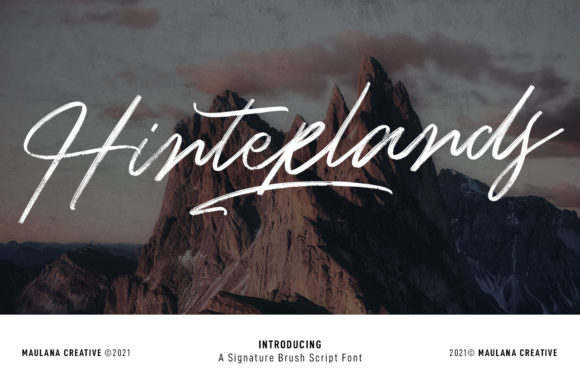
**Hinterlands Signature Font: A Culinary Canvas for Enticing Food Websites**
Welcome, food enthusiasts and culinary maestros! Embark on a gastronomic journey with Hinterlands Signature, the font that transforms your food websites into tantalizing havens. Its delicate strokes and enchanting curves evoke a sense of authenticity, inviting your customers to savor every morsel of information.
Hinterlands Signature is the perfect font for:
* **mouthwatering food blogs:** Showcase your culinary creations with an irresistible charm that awakens the senses.
* **alluring restaurant websites:** Create a dining experience that captivates from the first click, enticing patrons to indulge in your culinary delights.
* **enticing food packaging:** Transform your products into edible masterpieces, leaving a lasting impression on the taste buds of your customers.
**Why Hinterlands Signature is the Secret Ingredient for Your Food Website:**
* **Authenticity that Seduces the Senses:** Its hand-crafted feel whispers of traditional kitchens and home-cooked meals, creating an atmosphere of warmth and comfort that makes your dishes irresistible.
* **Versatility that Satisfies Every Craving:** From elegant menus to eye-catching social media posts, Hinterlands Signature adapts seamlessly, ensuring your food content captivates on every platform.
* **Beauty that Delights the Eyes:** Its graceful curves and elegant flourishes add an artistic touch to your website, transforming it into a visual feast that delights the senses.
* **Emotional Appeal that Stirs the Soul:** Hinterlands Signature evokes a sense of nostalgia and longing, reminding customers of cherished culinary memories and igniting their desire for your creations.
**Taste the Difference with Hinterlands Signature Font:**
Imagine your website as a culinary masterpiece, where every element harmoniously enhances the dining experience. Hinterlands Signature Font is the secret ingredient that elevates your food content, creating an irresistible feast for the eyes that leaves your customers hungry for more.
Indulge in the delectable world of food websites with Hinterlands Signature Font today and watch your culinary creations soar to new heights of success.